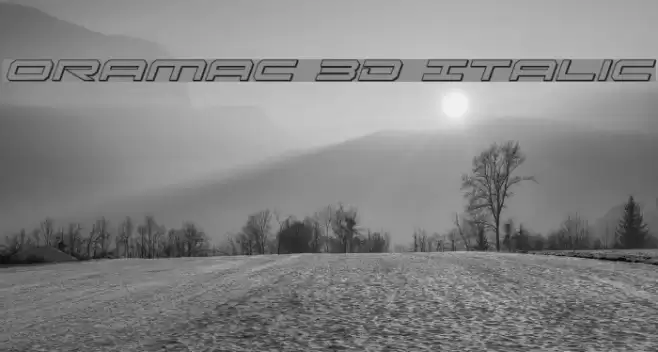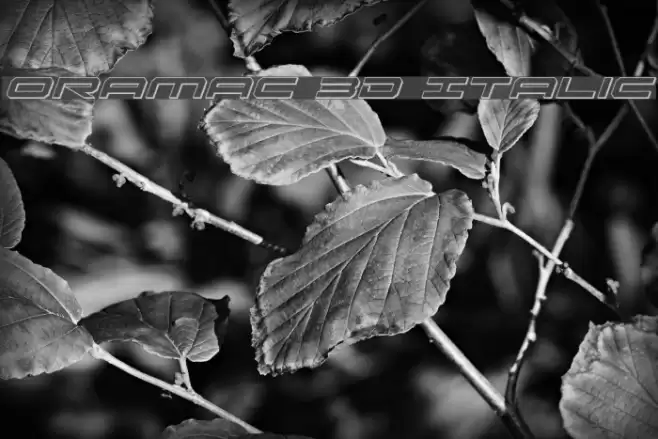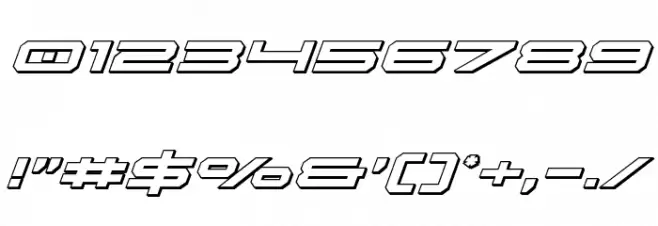
Oramac 3D Italic Font
Oramac 3D Italic Description
This font features a futuristic and dynamic design with a 3D effect, giving it a sense of depth and movement. The characters are outlined, creating a hollow appearance that enhances the three-dimensional look. The italic slant adds a sense of speed and modernity, making it ideal for projects that require a bold and innovative touch. The uppercase and lowercase letters maintain a consistent style, with angular and geometric shapes that contribute to its tech-inspired aesthetic. The numbers and special characters follow the same design principles, ensuring uniformity across all elements.
A futuristic 3D italic font with outlined, angular characters from Uncategorized fonts.
- Proposed Projects: Ideal for tech branding, video game titles, sci-fi posters, and modern advertisements.